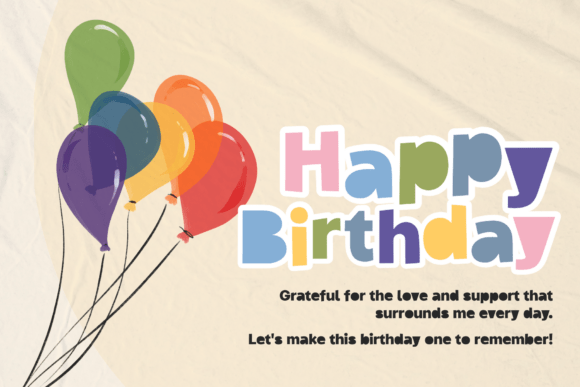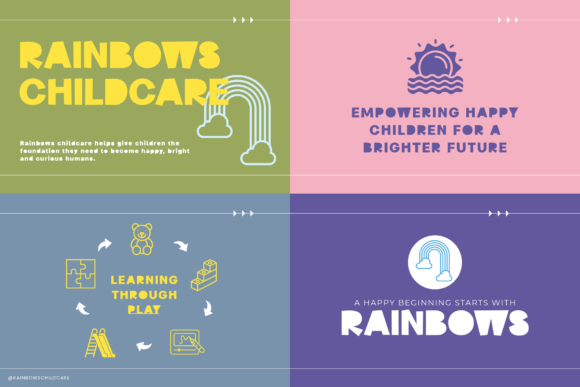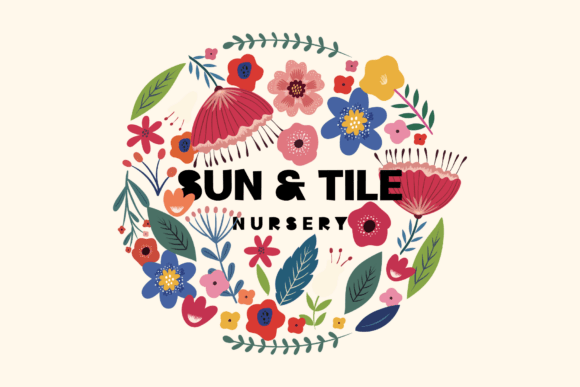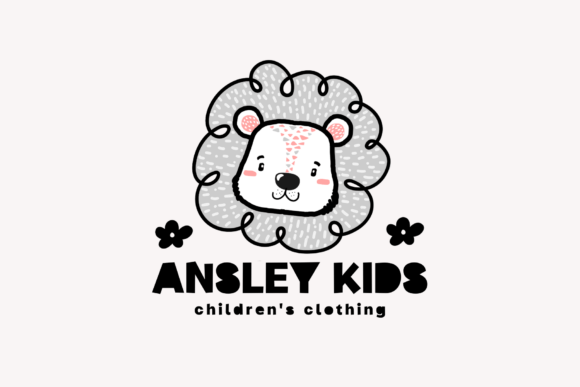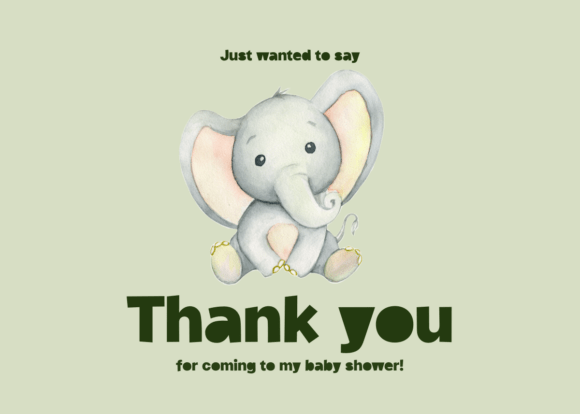
Discover the Joyful World of Blocky Delight Font
Have you ever been in the middle of a design project, and suddenly, you just can’t seem to find the right font? I recall a recent experience where I was working on a children’s book layout, and my client requested a font that was not only playful but also conveyed a sense of warmth and friendliness. After hours of searching, I stumbled upon the Blocky Delight Font, and it instantly brought my design to life!
Blocky Delight is a fun and charming display font created to brighten up your designs with a playful and joyful touch. Featuring bold chunky letters, soft rounded edges, and unique whimsical shapes, this font brings a lively personality that feels friendly, cute, and full of happiness.
Perfect for Creative Projects
Designed especially for children’s themes and cheerful creative projects, Blocky Delight is perfect for:
- Kids branding
- Educational materials
- Birthday invitations
- Toy packaging
- Nursery decor
- Posters
- Stickers
- Social media designs that need a colorful and energetic look
Its bold presence makes every word stand out while keeping a warm and approachable feel. The playful structure and handmade character give this font a natural and expressive style, making it ideal for projects that want to feel fun, imaginative, and memorable.
- ✨ The playful and whimsical design that instantly captures attention
- ✅ The font’s versatility in various design projects, from kids’ branding to educational materials
- 🎉 The unique blend of bold and soft elements that create a friendly and approachable feel
- 📚 The font’s ability to evoke emotions and create a sense of joy in designs
⚠️ One thing to note is that Blocky Delight is a display font, so it’s best used for headlines and titles rather than body text. Also, some of the more intricate details may not render as well at smaller font sizes.
🤔 Another thing to consider is that the font’s playful nature might not be suitable for more formal or professional designs.
The Story Behind Blocky Delight
Blocky Delight was designed with the intention of creating a font that would bring joy and playfulness to designs. The designer, inspired by childhood memories of playing with building blocks, aimed to create a font that would evoke a sense of nostalgia and wonder.
The design process involved experimenting with different shapes and forms, ultimately resulting in a unique and whimsical font that is both bold and approachable.
Q: What type of projects is Blocky Delight best suited for?
A: Blocky Delight is perfect for kids’ branding, educational materials, birthday invitations, toy packaging, nursery decor, posters, stickers, and social media designs that need a colorful and energetic look.